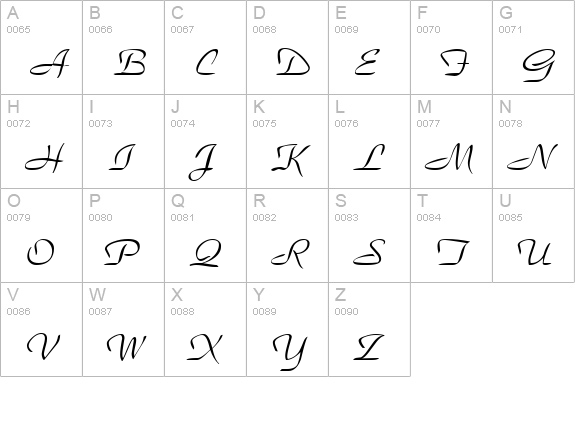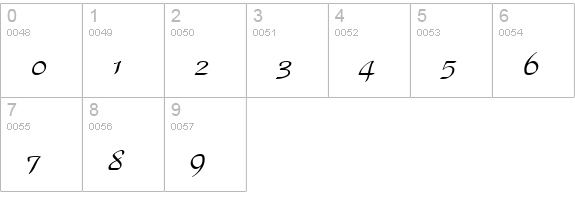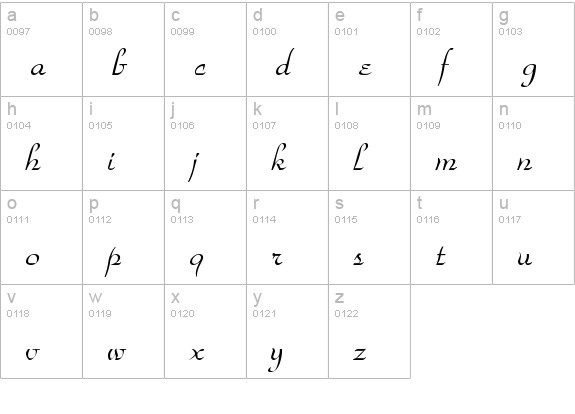
ParkPlace Regular Font Details
ParkPlace Regular is the standard, neutral variant in the ParkPlace typeface family \xE2\x80\x94 well suited to general body text, paragraphs, and standard typographic work.
ParkPlace Regular is a timeless and versatile font that effortlessly captures a sense of elegance and sophistication. With its clean lines and balanced letterforms, this font is perfect for a wide range of design projects, from logos and branding materials to invitations and web graphics. The beauty of ParkPlace Regular lies in its simplicity. The carefully crafted letterforms have a classic and timeless appeal, making it suitable for both modern and vintage-inspired designs. Whether you're creating a sleek and professional corporate identity or a charming and whimsical wedding invitation, this font has the versatility to adapt to any style. One of the best things about ParkPlace Regular is that it is freely available to download at FontsMarket.com. This means that you can easily access and use this stunning font in your design projects without any restrictions or limitations. Whether you're a professional designer or a hobbyist, this font is a valuable addition to your typography collection. The clean and legible nature of ParkPlace Regular ensures that your message is conveyed with clarity and precision. Its well-balanced letterforms make it highly readable even at small sizes, making it perfect for body text or lengthy passages of content. Additionally, its generous spacing and carefully crafted kerning ensure that each letter flows seamlessly into the next, creating a harmonious and visually pleasing text. ParkPlace Regular is a font that exudes a sense of timelessness and sophistication, making it a perfect choice for a wide range of design projects. Its versatility, combined with its elegant aesthetics and freely available download, makes it a must-have for any designer or typographer. Download ParkPlace Regular today from FontsMarket.com and elevate your designs to new heights of elegance and style.